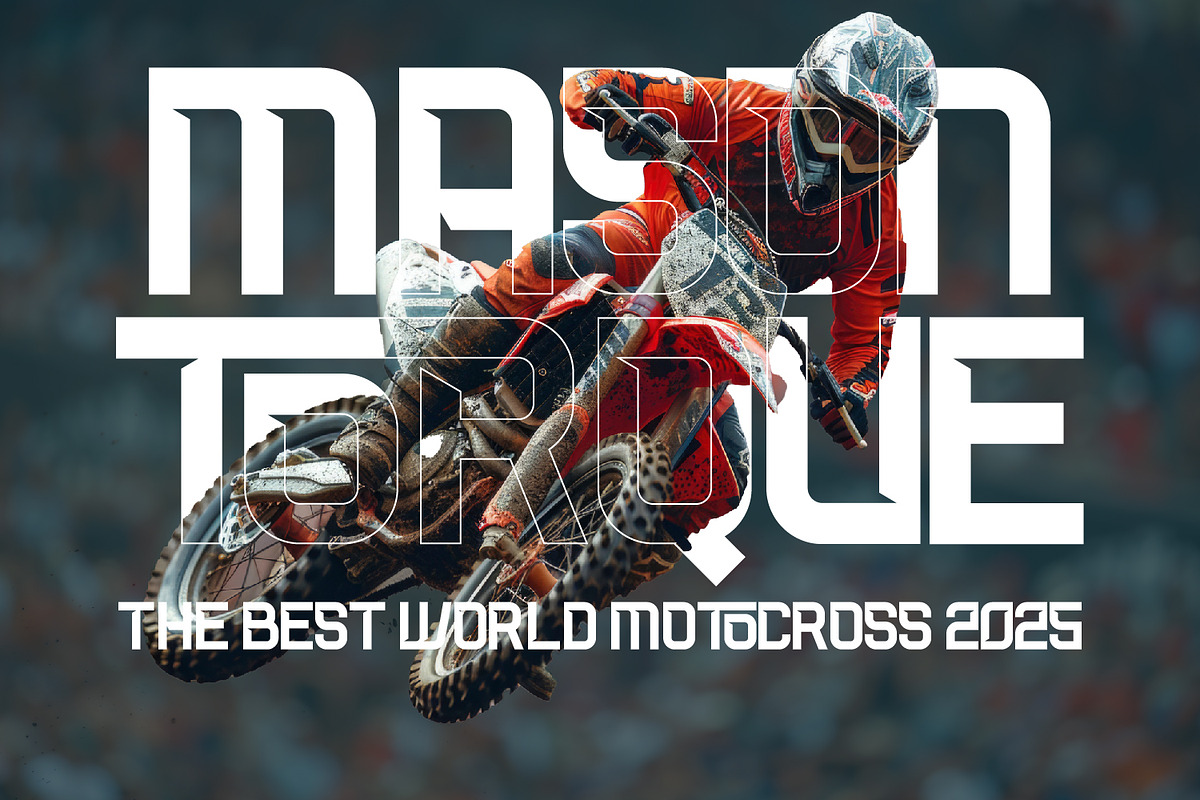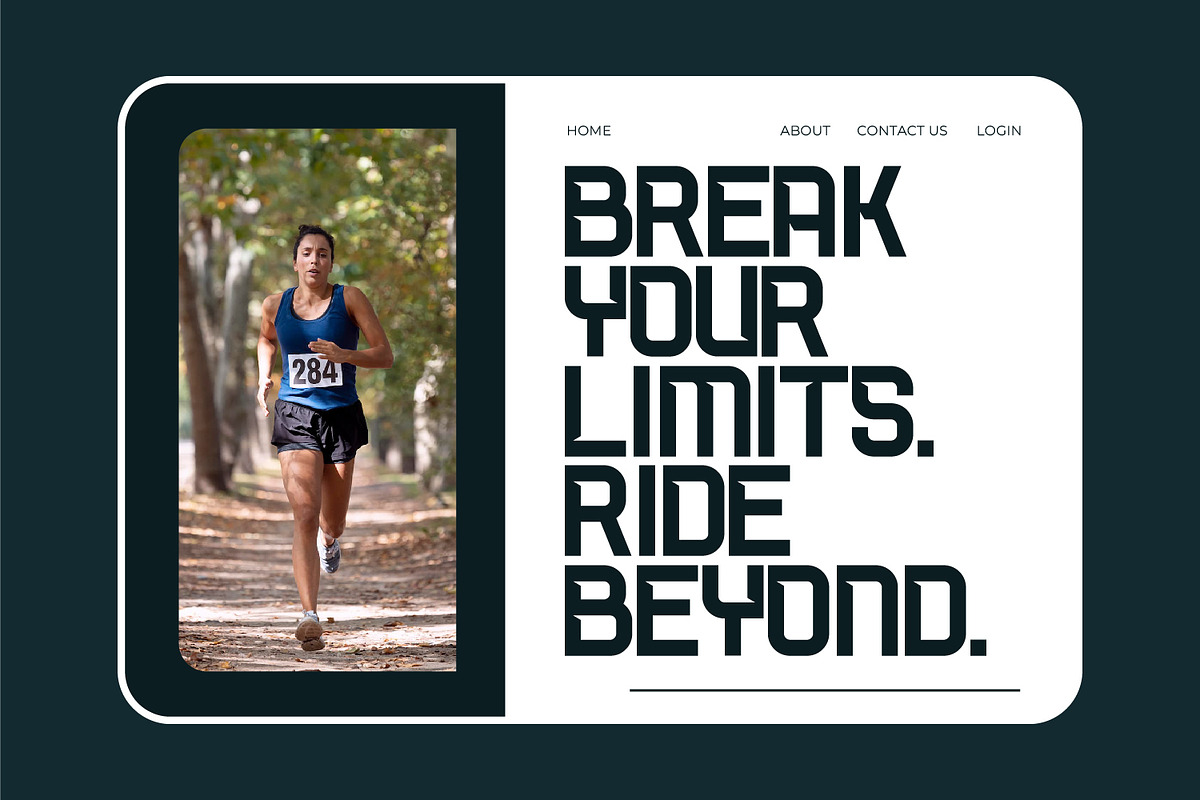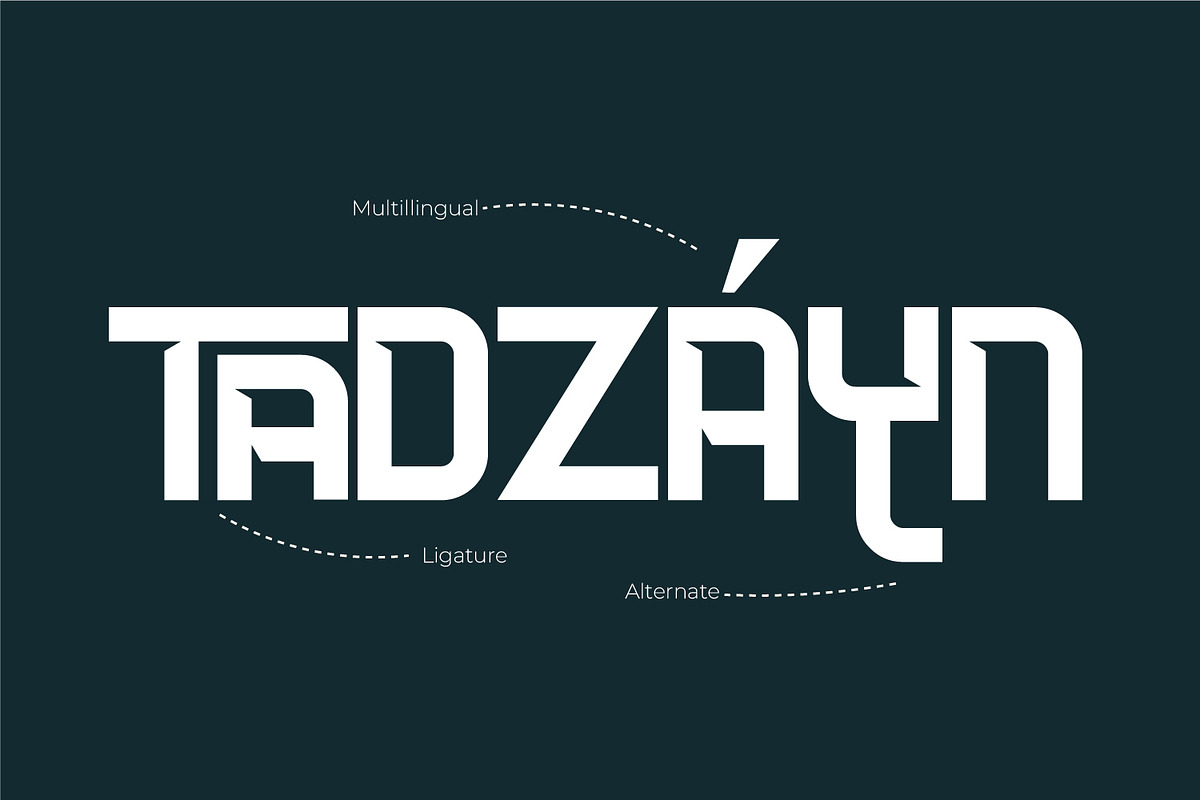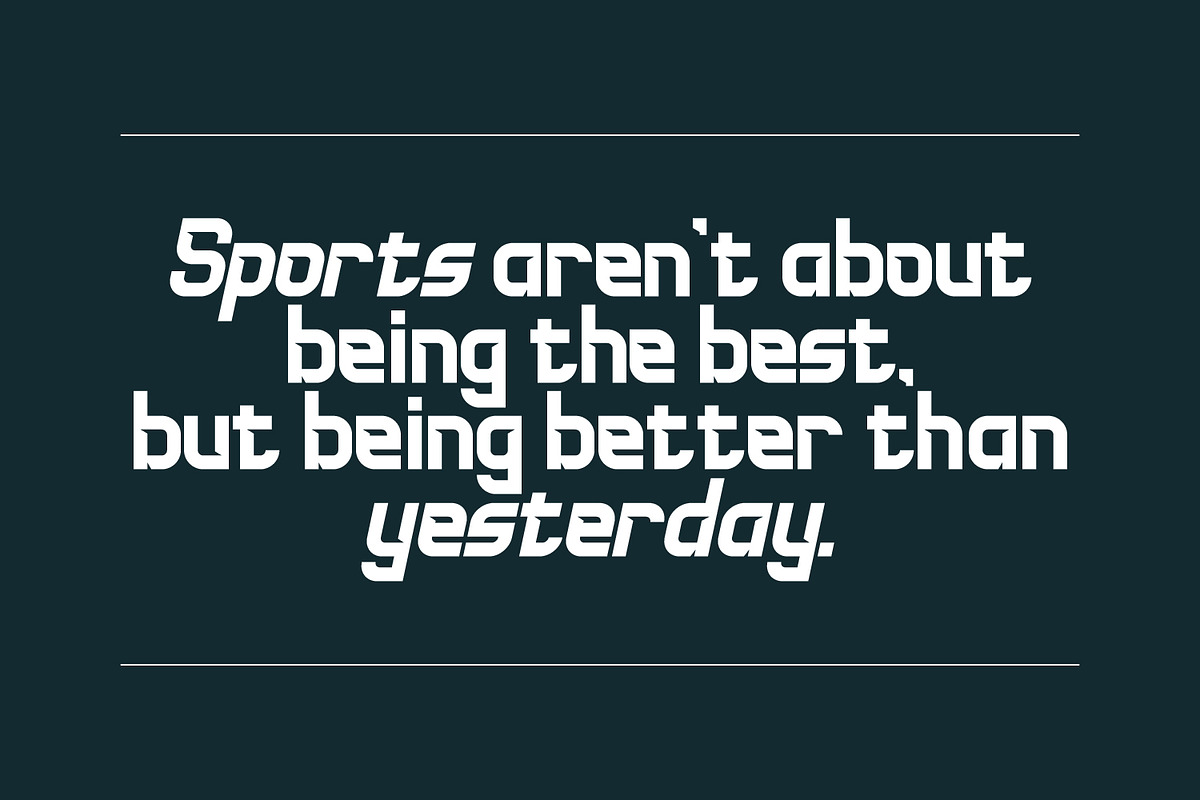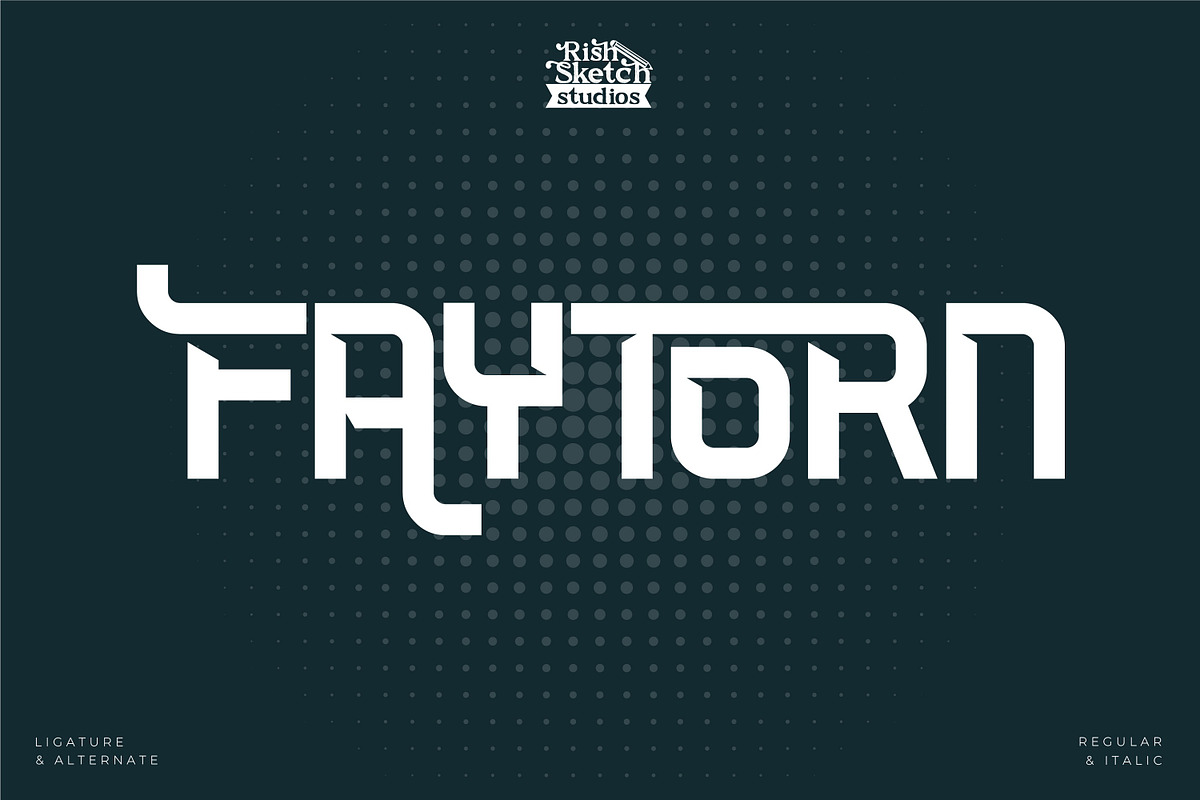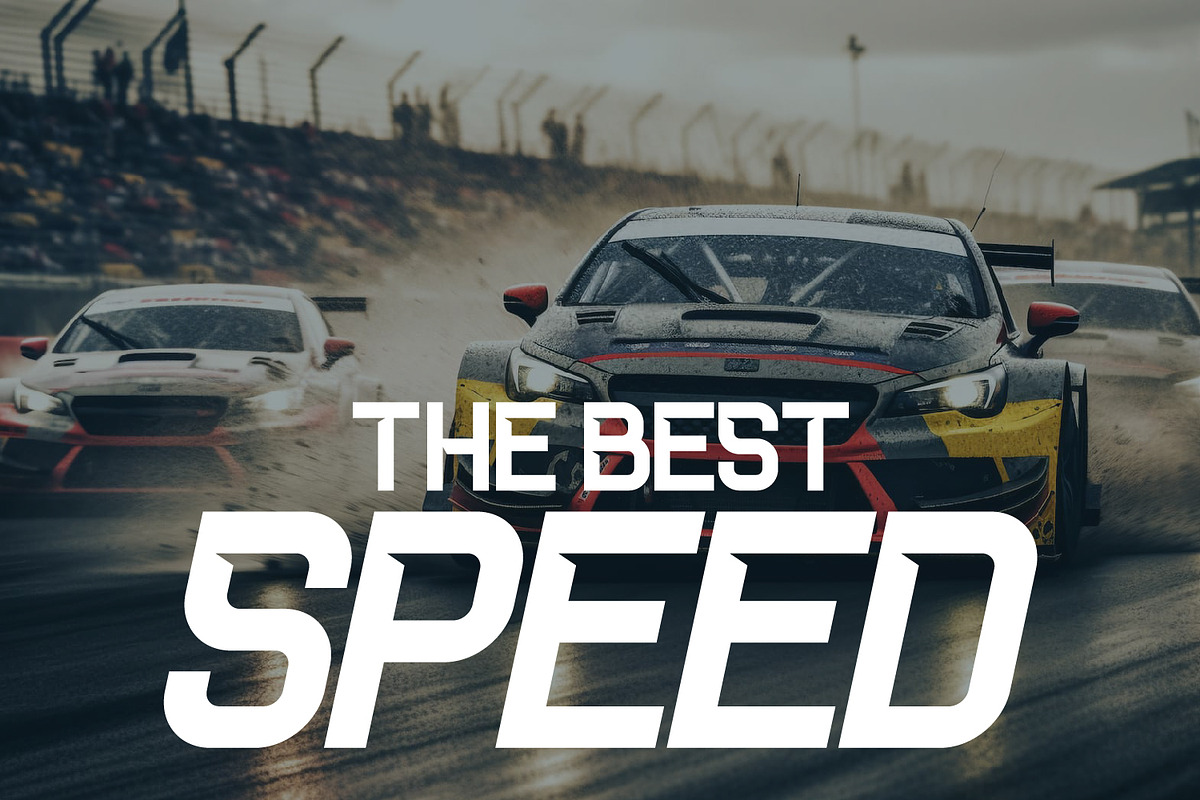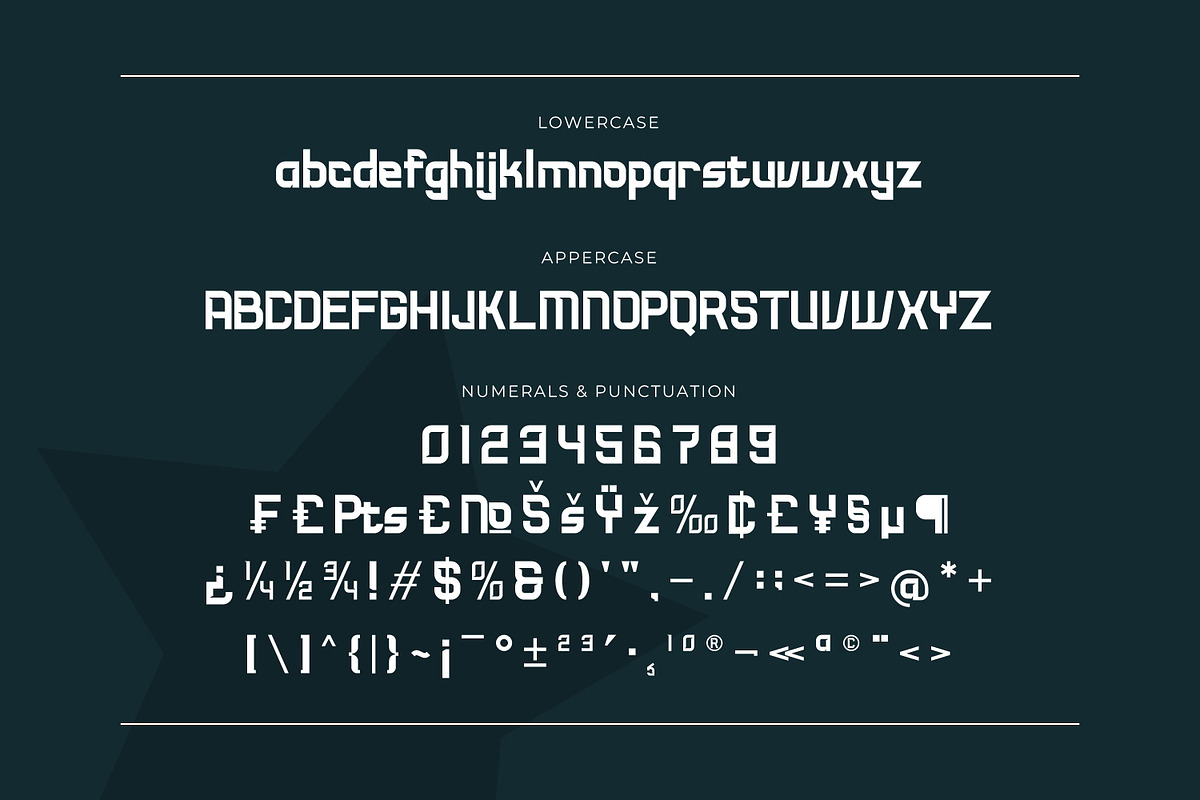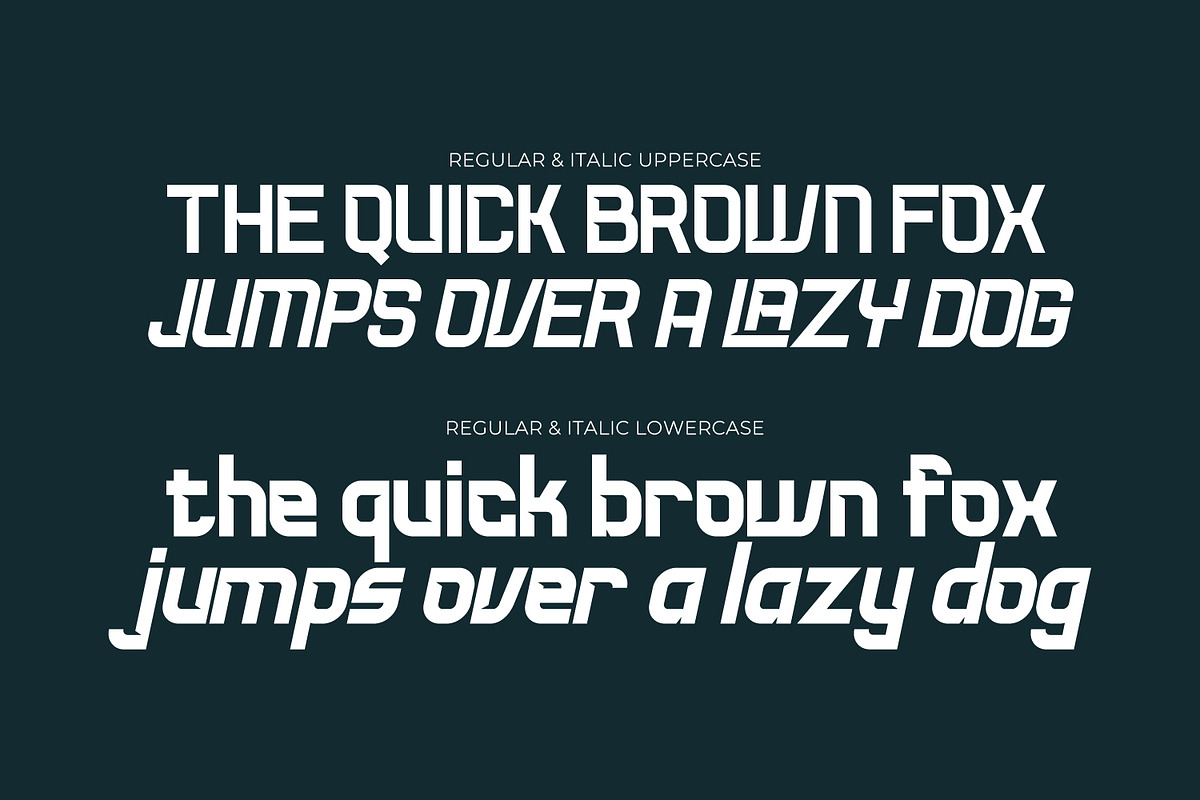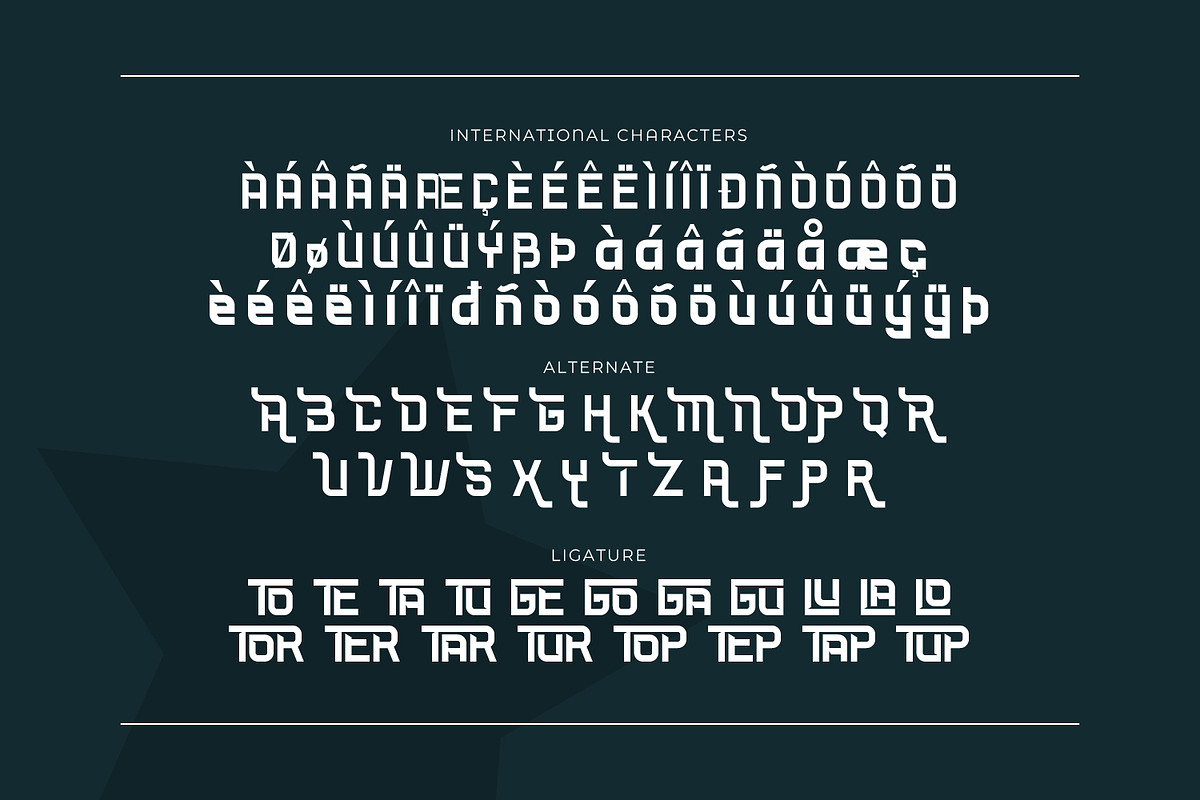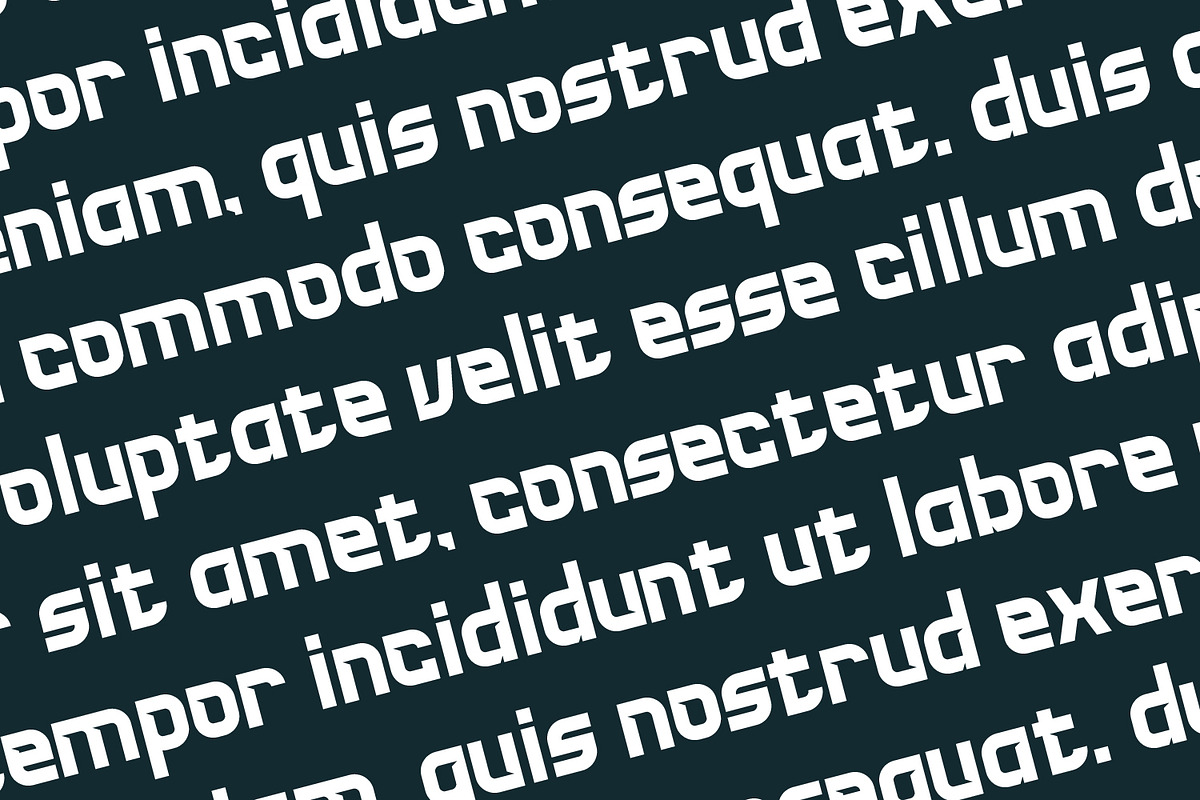
Faytorn - Futuristic Display Font
Faytorn - Futuristic Display Font, from Rishsketch Studios, is a premium Futuristic Display Font, perfect for any project that requires a distinctive, and premium feel.
Ligature, Alternate & Multilingual